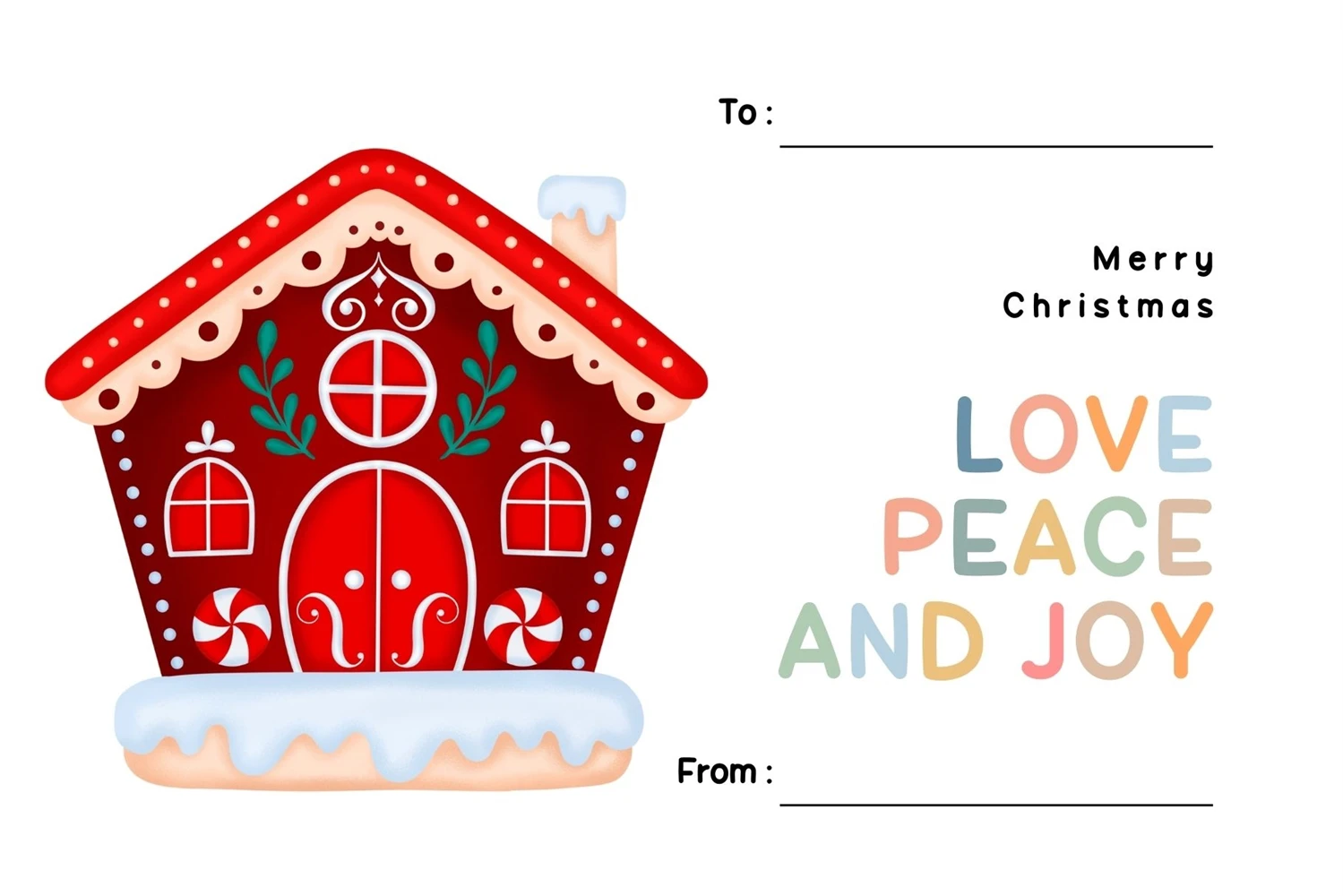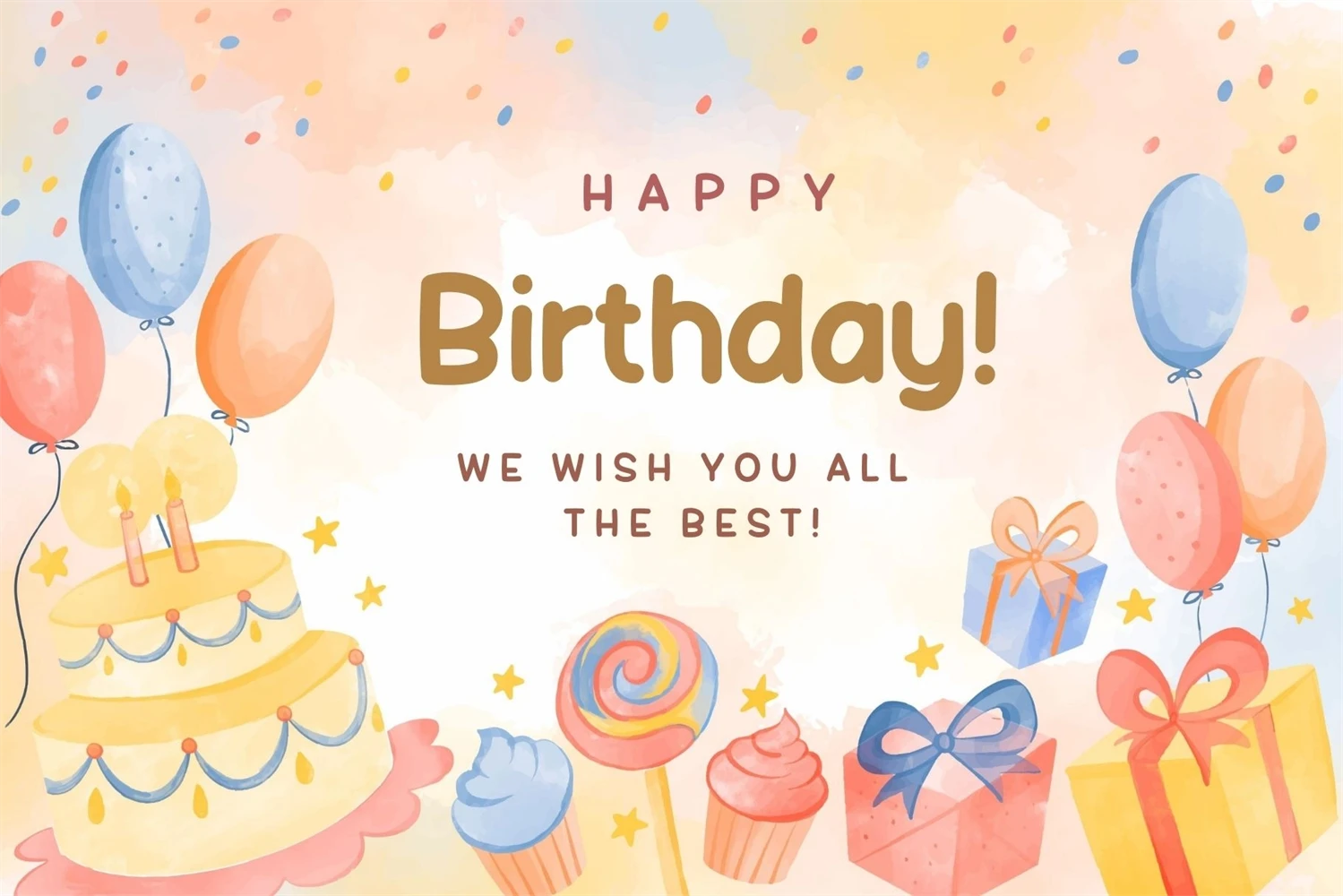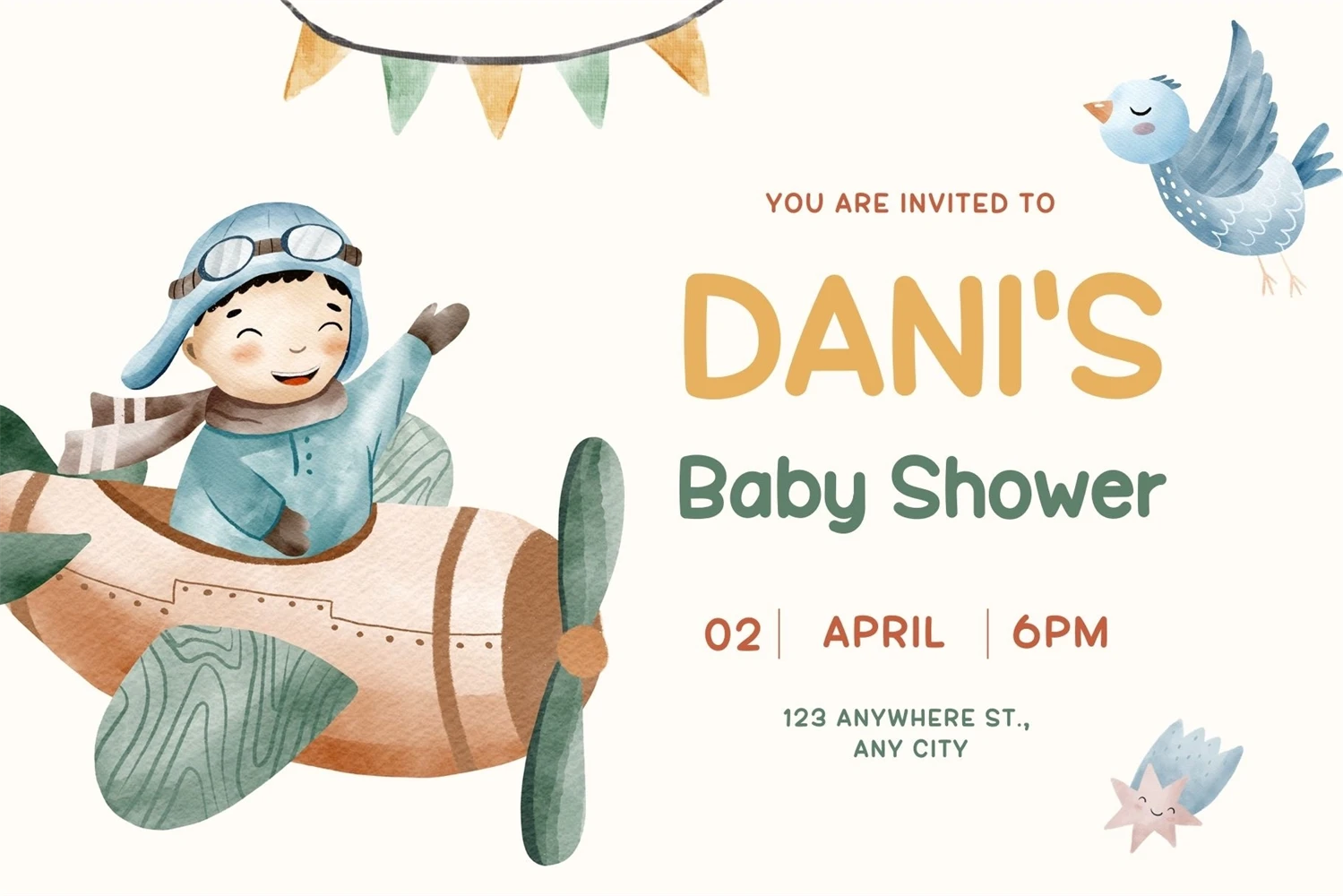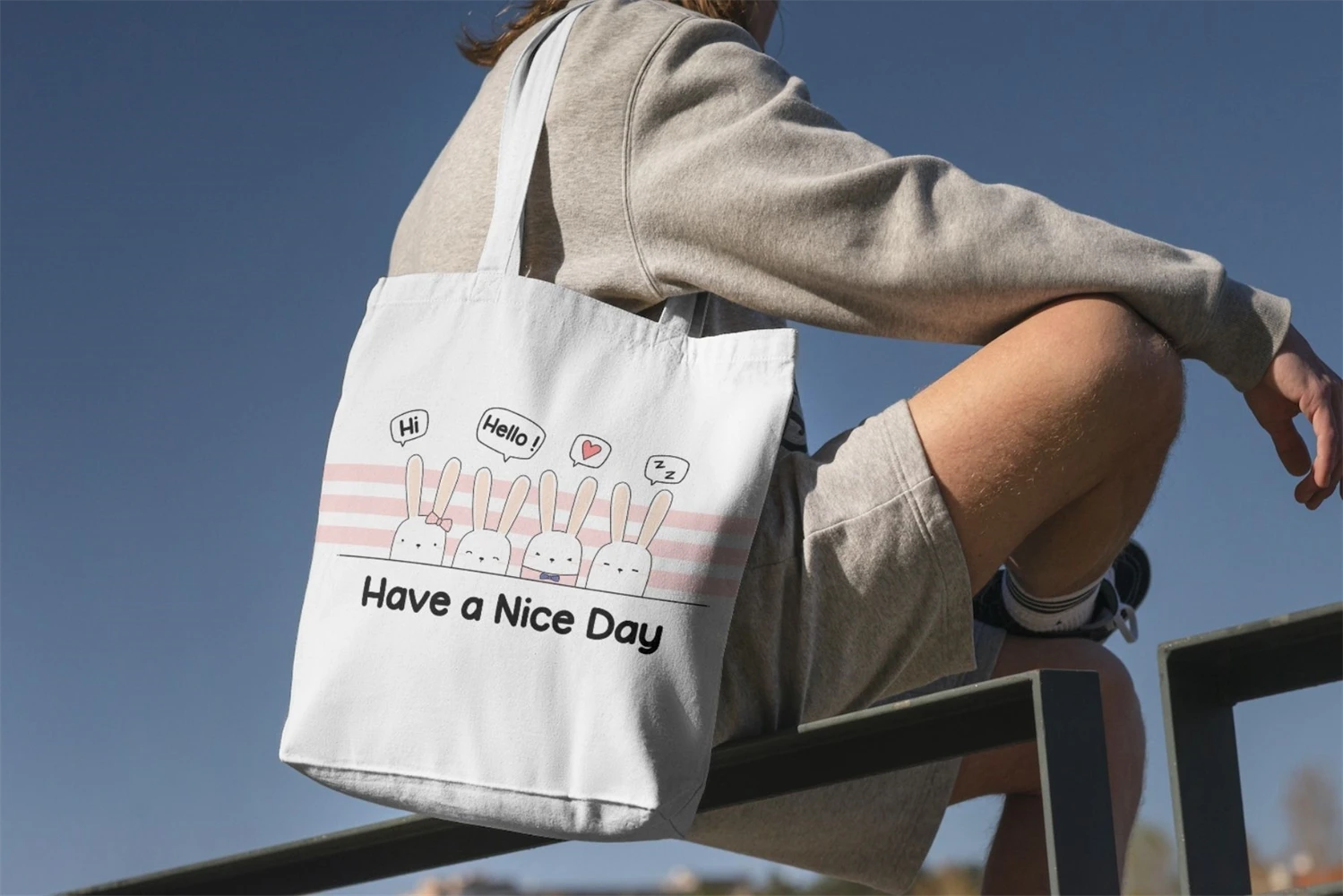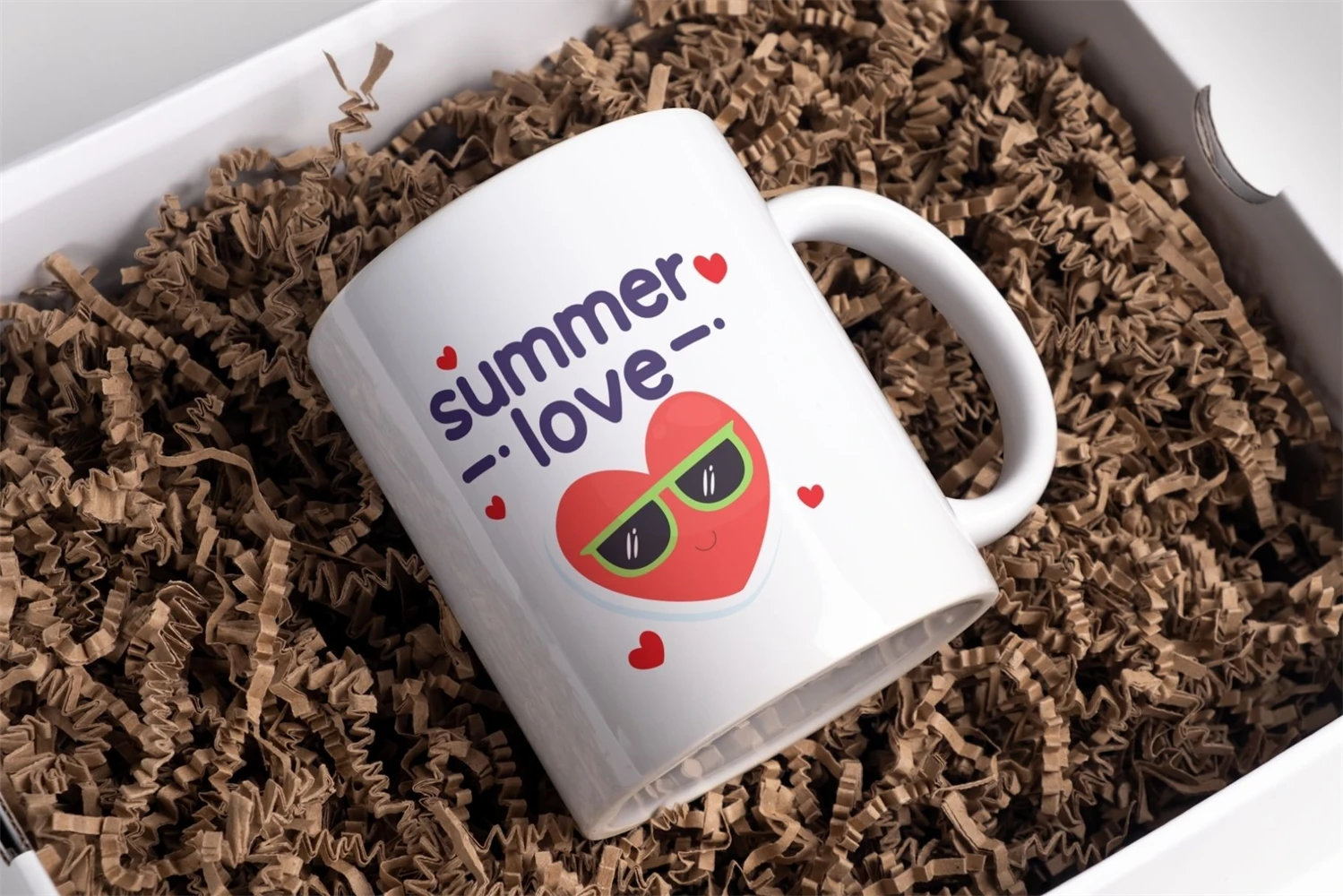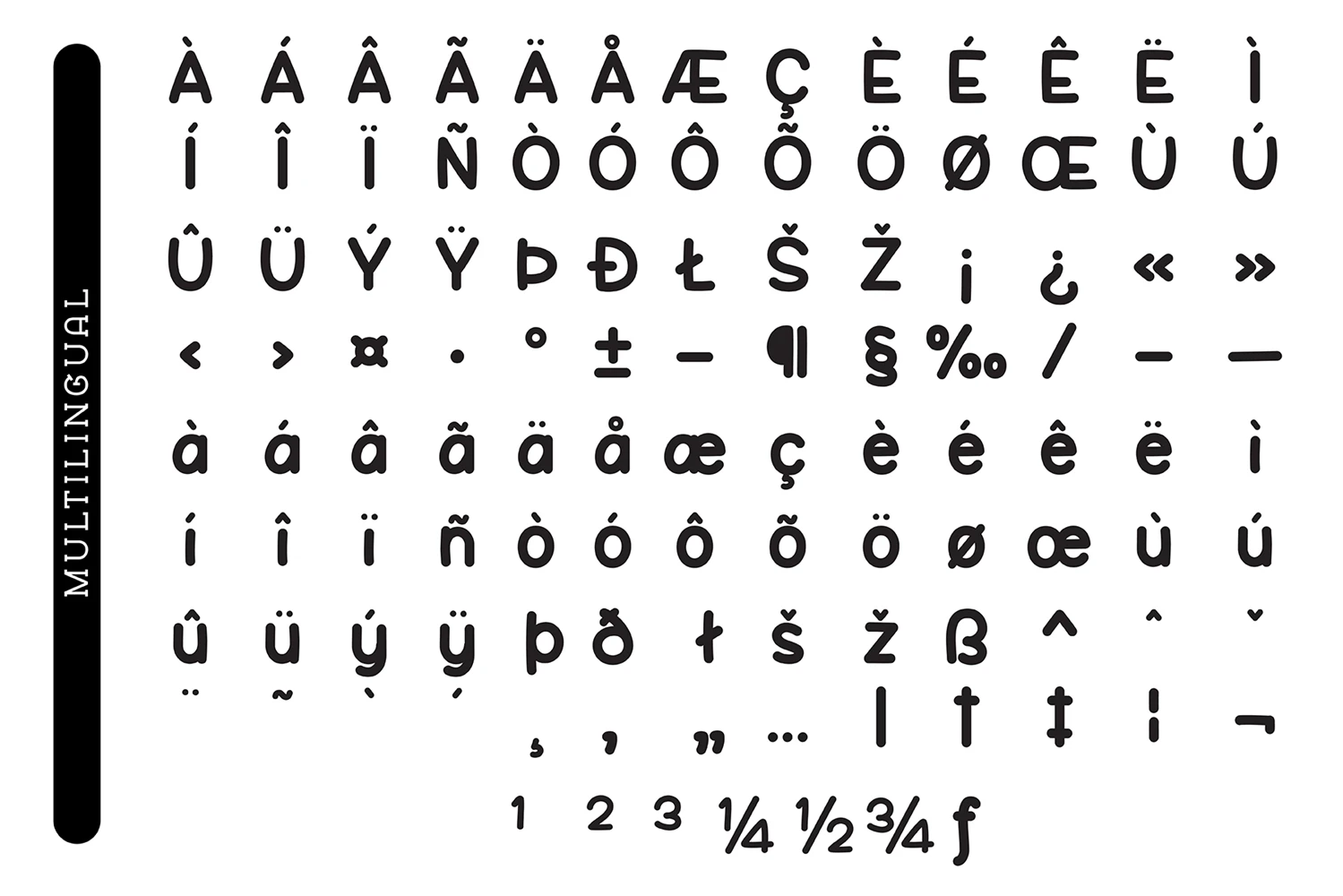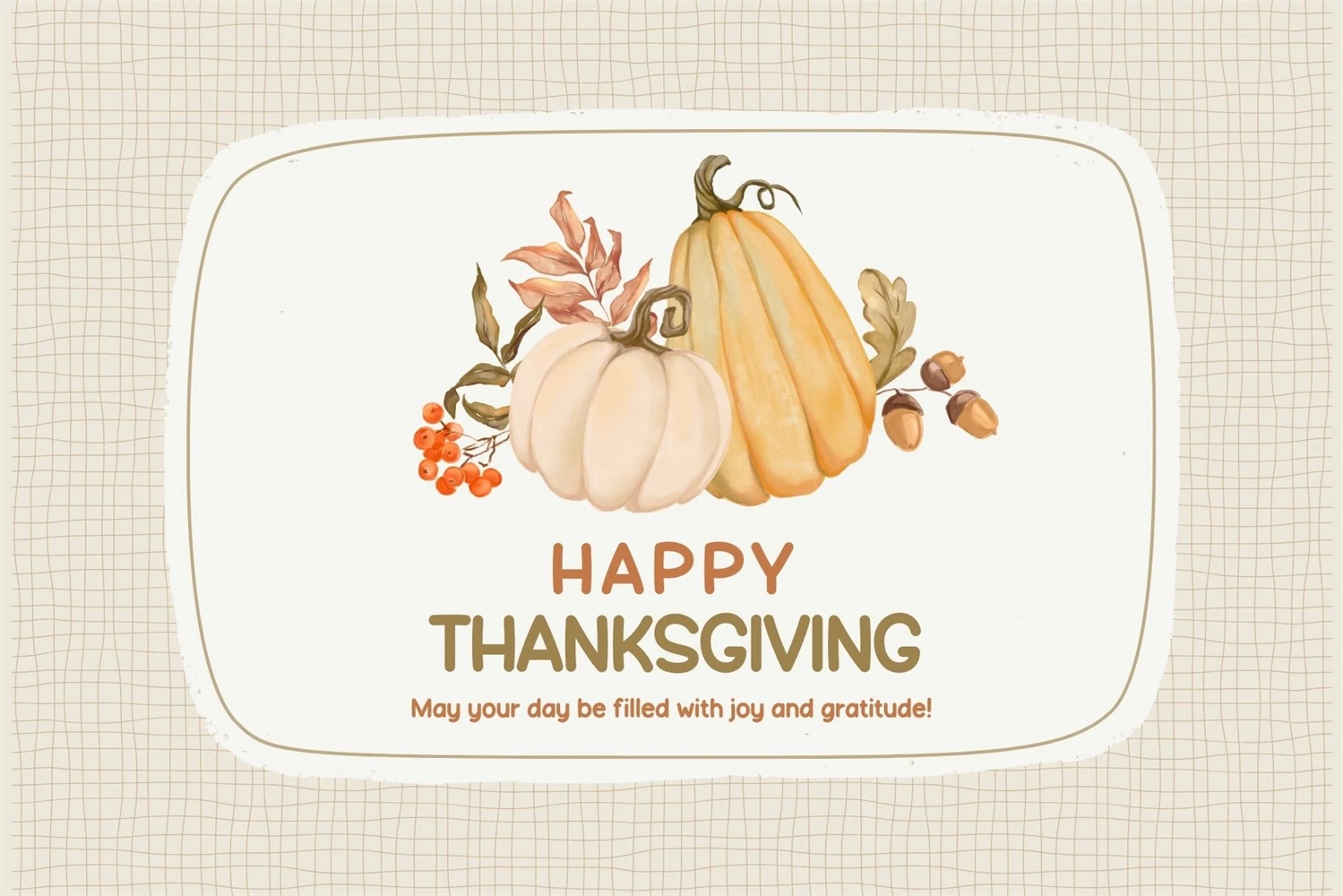
Fox Kawaii is a cute and fun display font. No matter the topic, this font will be an incredible asset to your fonts library, as it has the potential to elevate any creation. Its cheerful vibe is suitable for kid-friendly designs, posters, wall art, stickers, nursery decorations, or festival valentines, mothers day, and more!